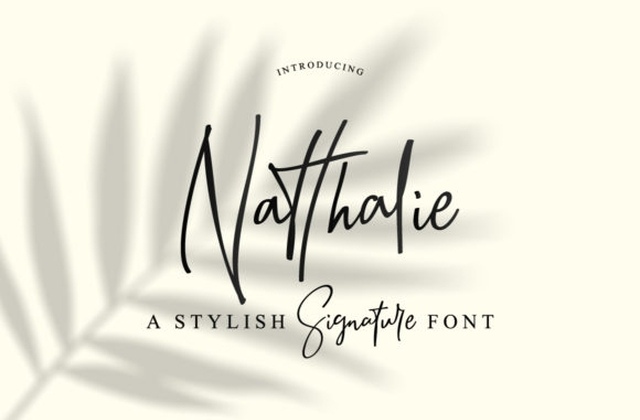
Natthalie Font
Natthalie Font is perfect for elegant wedding stationery, luxury beauty brand packaging, sophisticated fashion boutique signage, romantic greeting cards, high-end spa marketing materials, feminine lifestyle blogs, premium jewelry displays, and graceful social media graphics. This enchanting typeface excels in applications where refined femininity and personal elegance are essential for creating memorable and sophisticated brand experiences.
What makes Natthalie Font truly exciting is its exquisite balance of modern sophistication and timeless feminine grace. The font features flowing script letterforms with delicate curves and elegant flourishes that embody the essence of contemporary calligraphy artistry. Its carefully crafted connections and natural rhythm create a sense of effortless elegance that speaks to discerning audiences seeking authenticity and refinement. The typeface's romantic character and personal touch make it ideal for brands wanting to establish intimate connections with sophisticated female demographics through beautiful and meaningful typography.
The Natthalie Font family includes regular and ornate versions, complemented by an extensive collection of decorative swashes and stylistic alternates. The font offers comprehensive OpenType features with contextual ligatures that create natural handwritten connections, enhancing the script's authentic appearance. Additional flourished capitals, elegant terminals, and ornamental elements provide designers with enhanced creative flexibility for custom lettering solutions and unique brand applications.
For designers seeking an elegant and versatile script typeface, Natthalie Font Free Download represents an exceptional choice that elevates any creative project with sophisticated charm and feminine grace. Whether you're developing brand identities for luxury lifestyle companies, designing packaging for premium beauty products, or creating marketing materials for wedding services, this font delivers the refined elegance that appeals to sophisticated audiences. Its graceful letterforms and romantic character make it particularly effective for brands targeting affluent female demographics in fashion, beauty, and lifestyle sectors. The font's ability to convey both luxury and personal intimacy makes it an invaluable tool for creating distinctive brand communications that celebrate femininity, elegance, and the art of beautiful living.